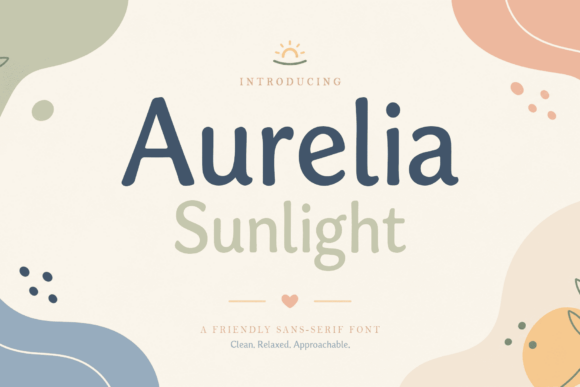
The Warmth of Aurelia Sunlight: A Font that Brings Sunshine to Your Designs
I’ll never forget the time I was working on a wedding invitation project, and my client asked me to create a design that felt “warm and inviting.” I scoured the internet for the perfect font, but everything I found seemed either too formal or too bland. That’s when I stumbled upon Aurelia Sunlight, a beautiful display font that radiates softness and character. It was love at first sight! ✨
Aurelia Sunlight: A Personal Review
- ✨ **Warm and inviting personality**: Aurelia Sunlight has a unique ability to make your designs feel approachable and polished at the same time.
- ✅ **Organic curves and confident strokes**: The font’s humanist design makes it perfect for branding, editorial headers, packaging, and creative projects.
- 💫 **Versatile and highly legible**: Whether you’re designing a logo, a social media post, or a product label, Aurelia Sunlight adds a touch of sun-kissed warmth that makes your work truly stand out.
While Aurelia Sunlight is an amazing font, it’s not perfect. Here are a few things to keep in mind:
- ⚠️ **Limited use in body text**: Due to its display nature, Aurelia Sunlight might not be the best choice for long blocks of text. It’s perfect for headlines and titles, but you might want to pair it with a clean serif or sans-serif for body text.
- 🤔 **Some glyphs may require manual adjustment**: Depending on the platform you’re using, you might need to manually adjust some glyphs to get the perfect look. But trust me, it’s worth it!
The Story Behind Aurelia Sunlight
Aurelia Sunlight was designed by a talented type designer who wanted to create a font that felt warm and inviting. Inspired by the beauty of sun-kissed landscapes, the designer crafted a font that radiates softness and character. With its organic curves and confident strokes, Aurelia Sunlight is the perfect addition to any design project.
| Font Name | Aurelia Sunlight Font |
| What is Aurelia Sunlight best used for? | Aurelia Sunlight is perfect for branding, editorial headers, packaging, and creative projects that want to feel both approachable and polished. |
| Can I use Aurelia Sunlight for body text? | While Aurelia Sunlight is a beautiful font, it’s best used for headlines and titles. For body text, you might want to pair it with a clean serif or sans-serif font. |
| Is Aurelia Sunlight a script font? | No, Aurelia Sunlight is a display font with a humanist design. It has a unique personality, but it’s not a script font. |